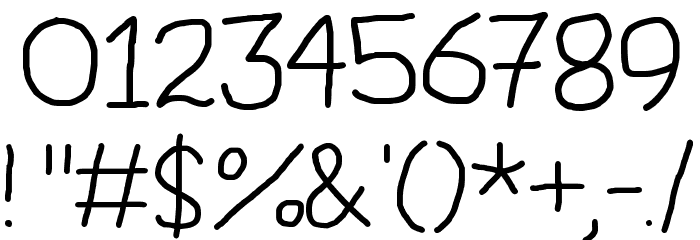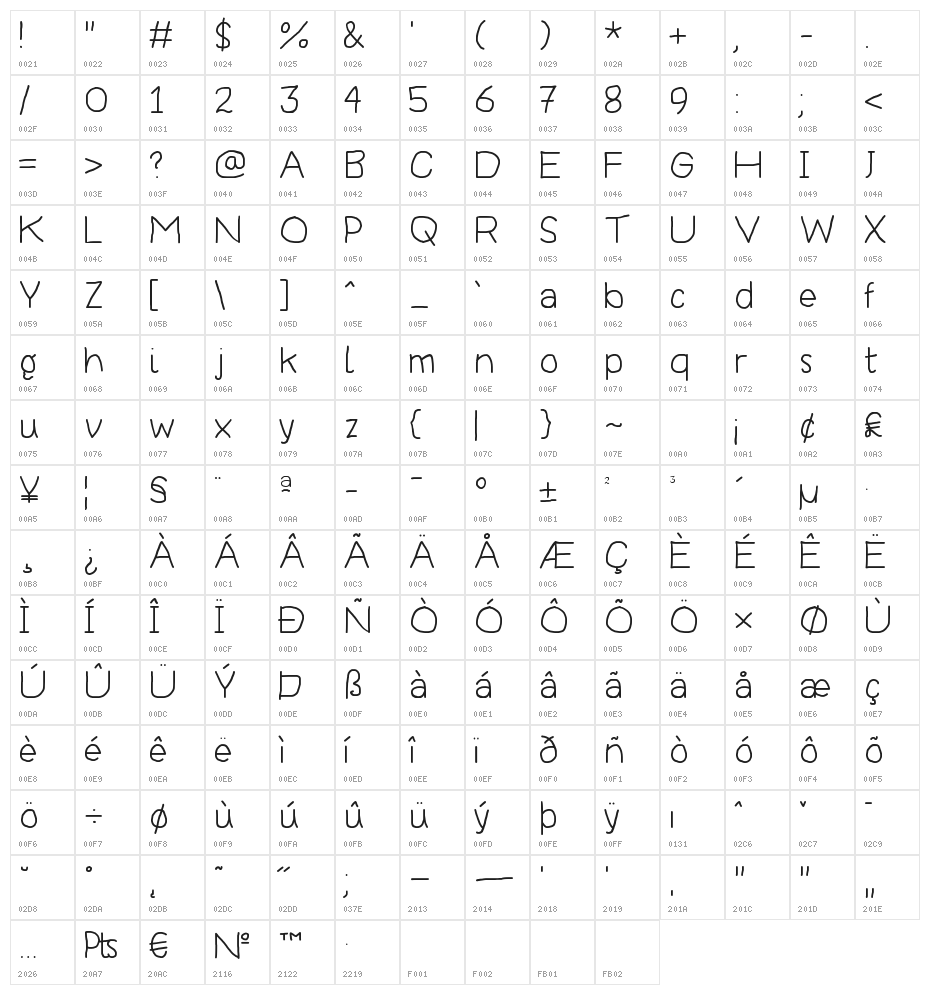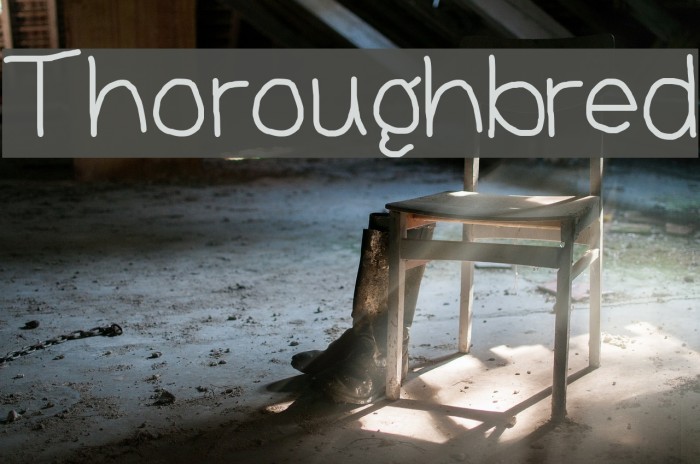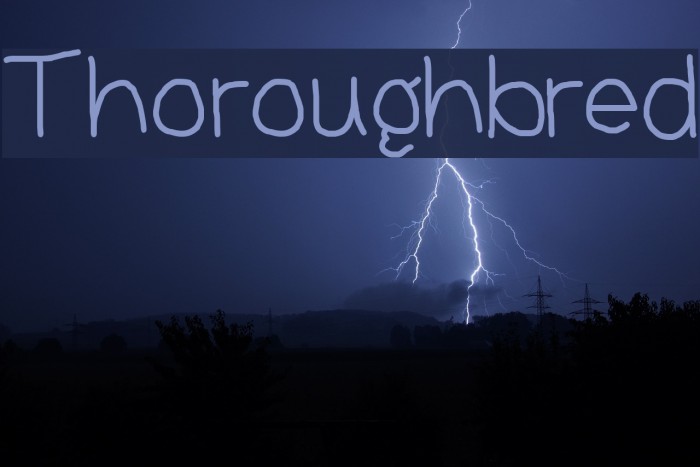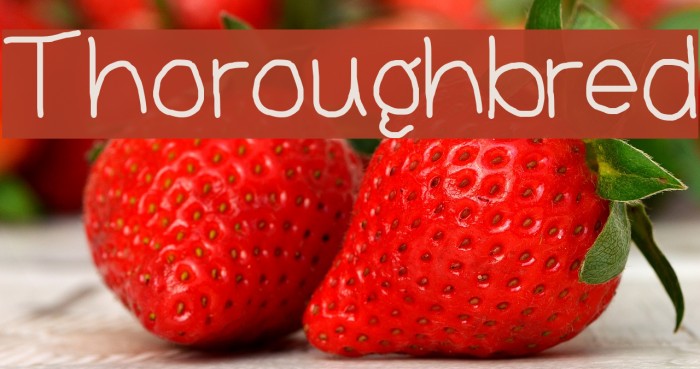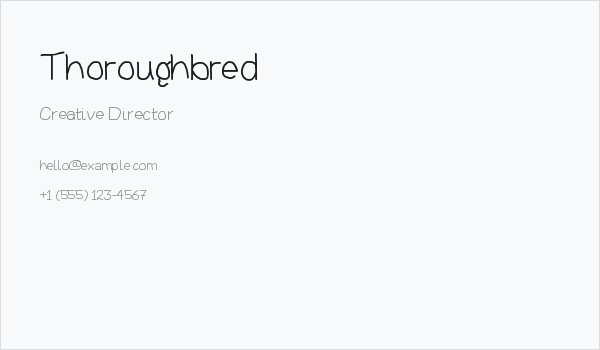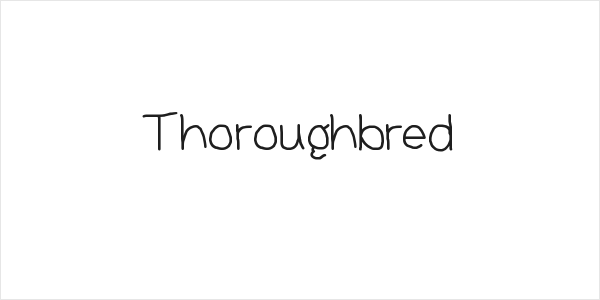
Thoroughbred Font
Thoroughbred Description
This font features a playful and casual handwritten style, characterized by its rounded and slightly irregular letterforms. The uppercase and lowercase letters maintain a consistent flow, with a natural and organic appearance that mimics the look of hand-drawn text. The numerals and special characters follow the same aesthetic, ensuring a cohesive look across all elements. The strokes are uniform in thickness, contributing to a clean and approachable feel. This font is versatile, suitable for projects that require a personal touch or a friendly, informal vibe.
A playful, handwritten font with rounded, uniform strokes from Uncategorized fonts.
- Proposed Projects: Ideal for greeting cards, children's books, casual branding, and social media graphics.
- Overall Style: Casual, Playful
- Use Case: Headlines, Informal text, Branding